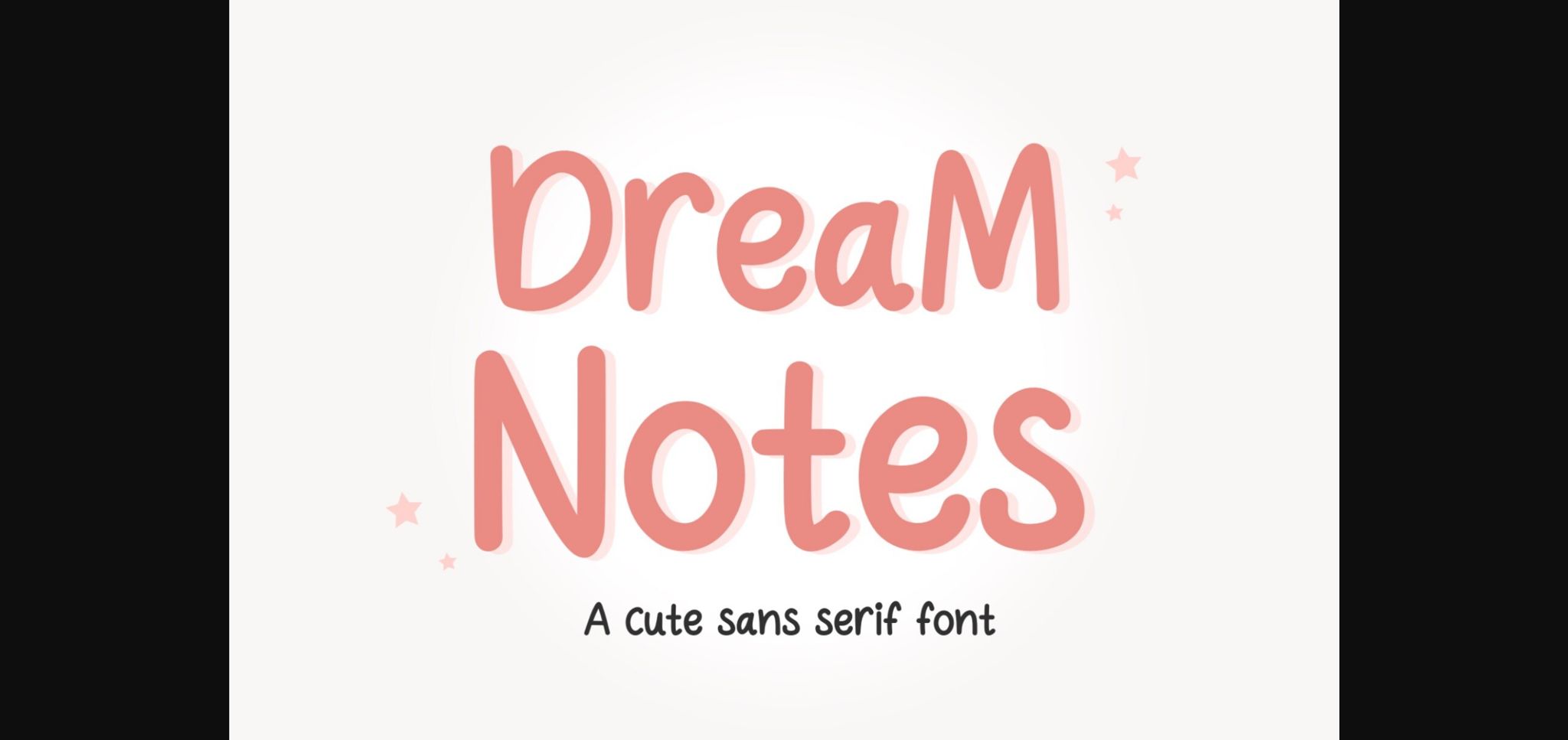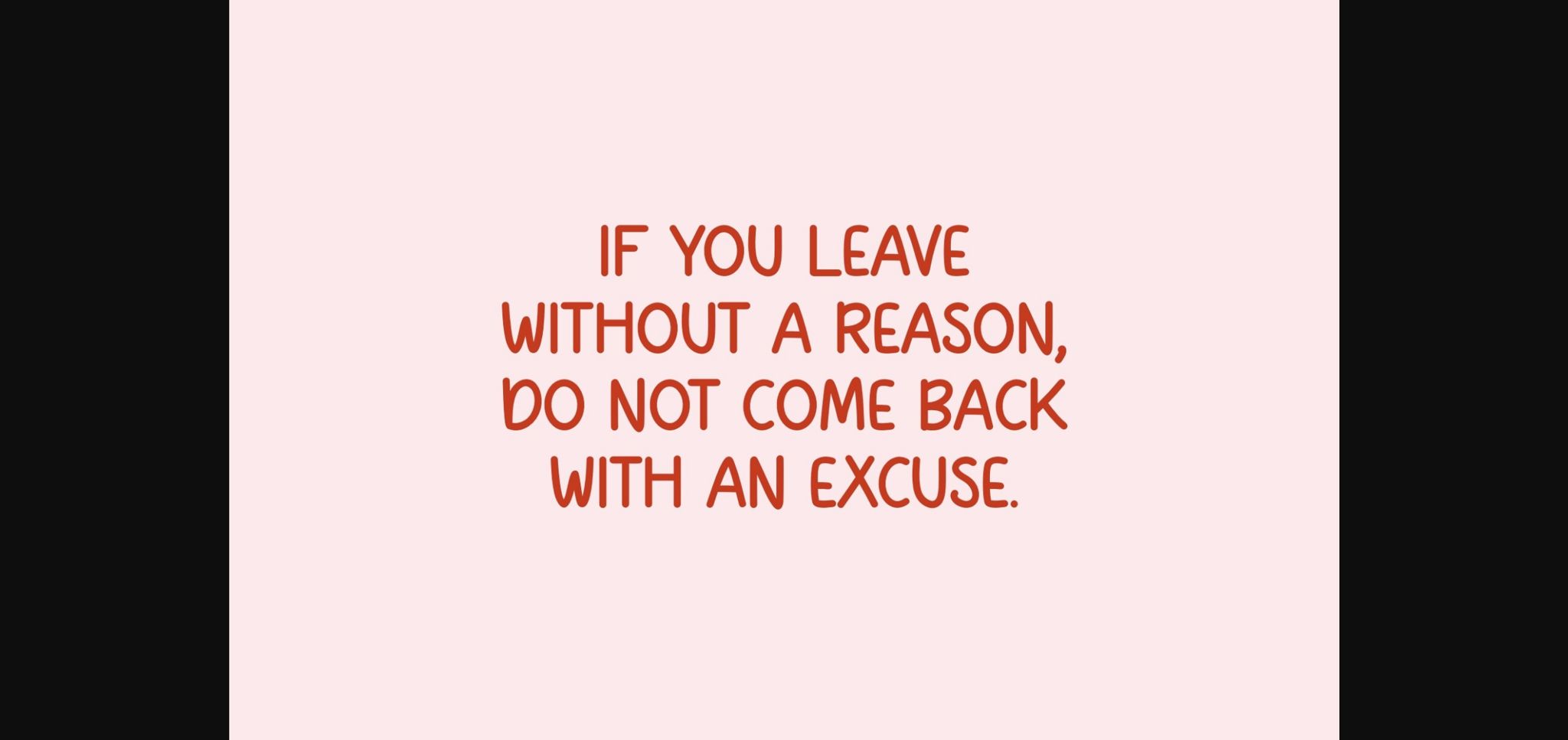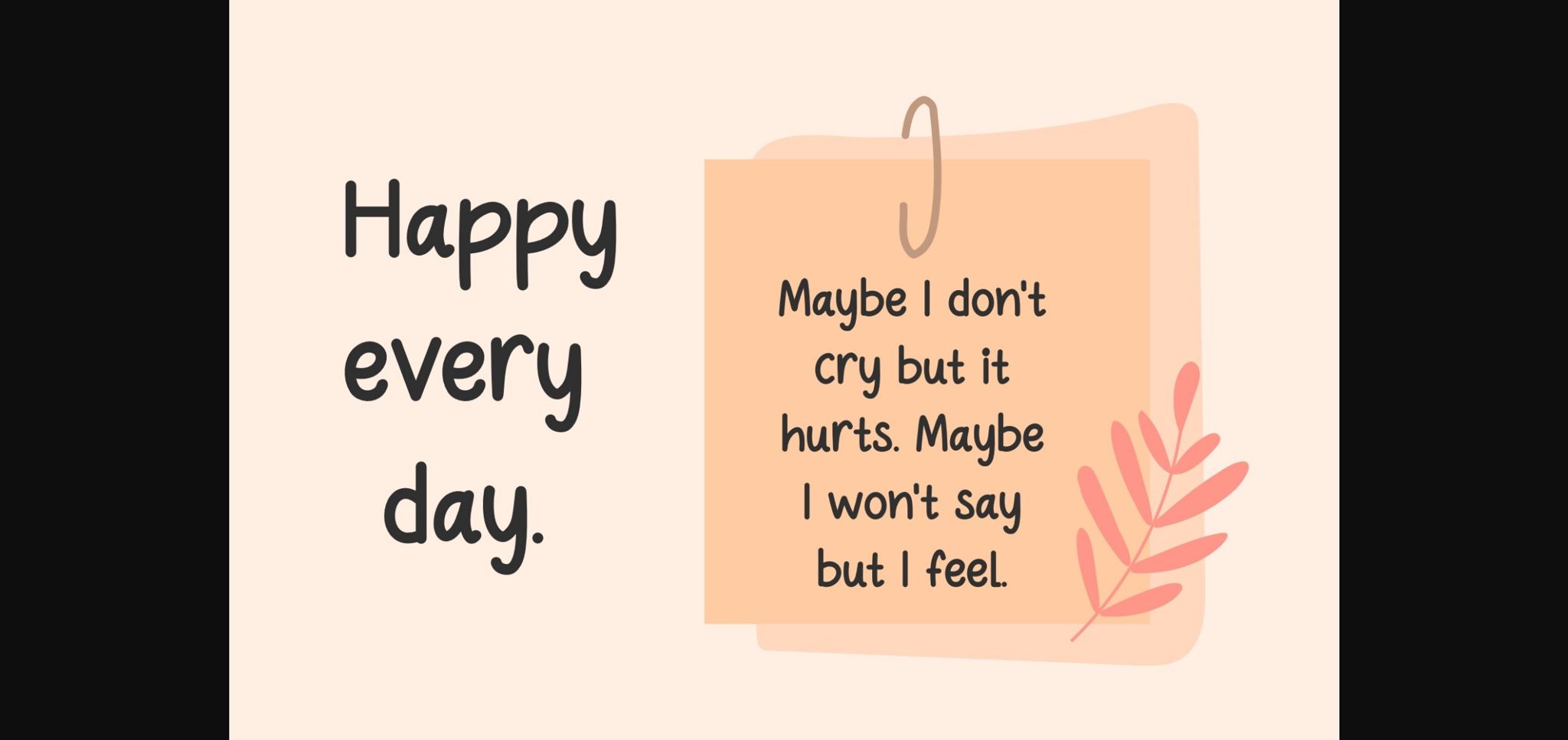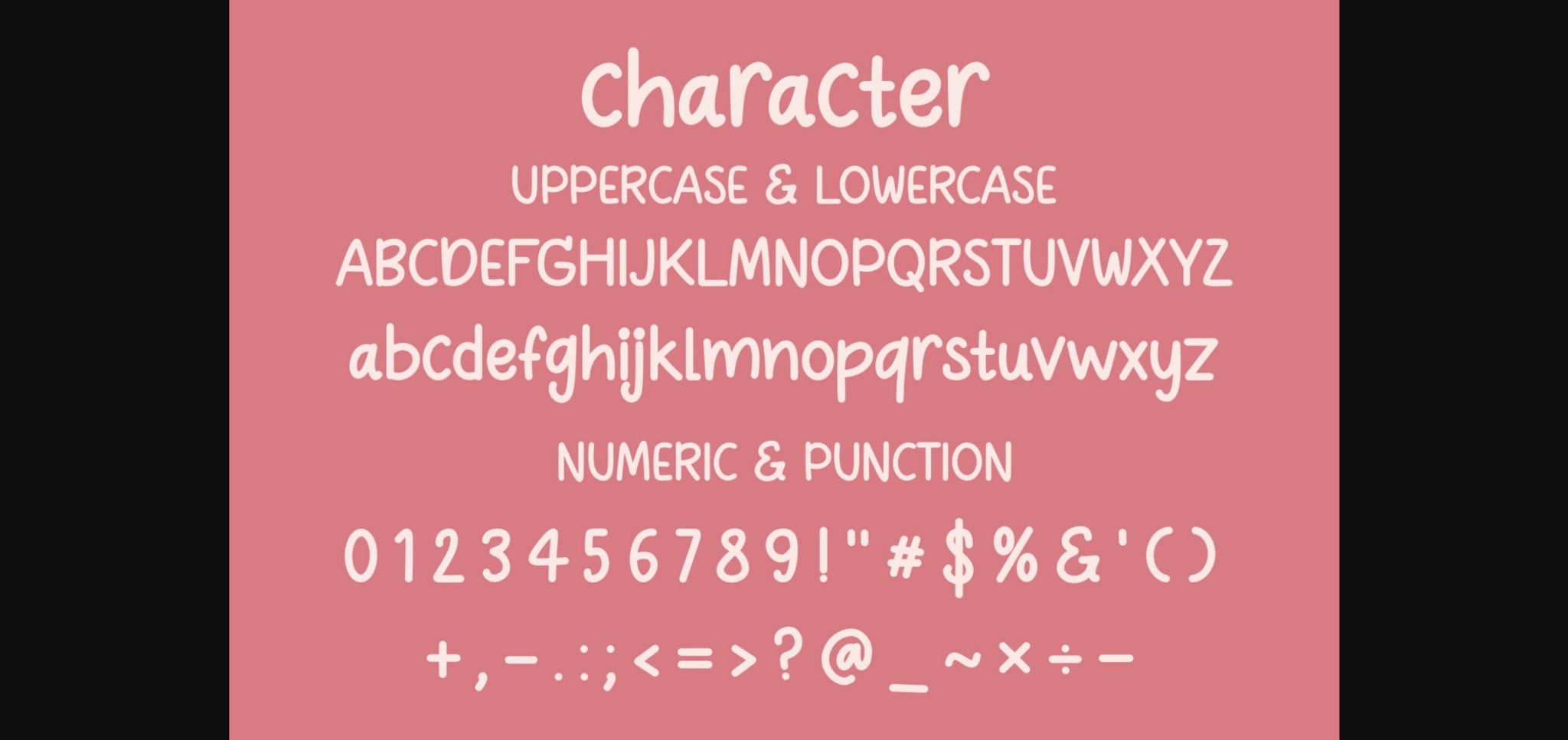
About Dream Notes Font
Experience the magic of Dream Notes font. Let your words soar with creativity and imagination. Transform your designs into works of art with the elegance of Dream Notes font. Elevate your projects to new heights and inspire others with every stroke. Cute font